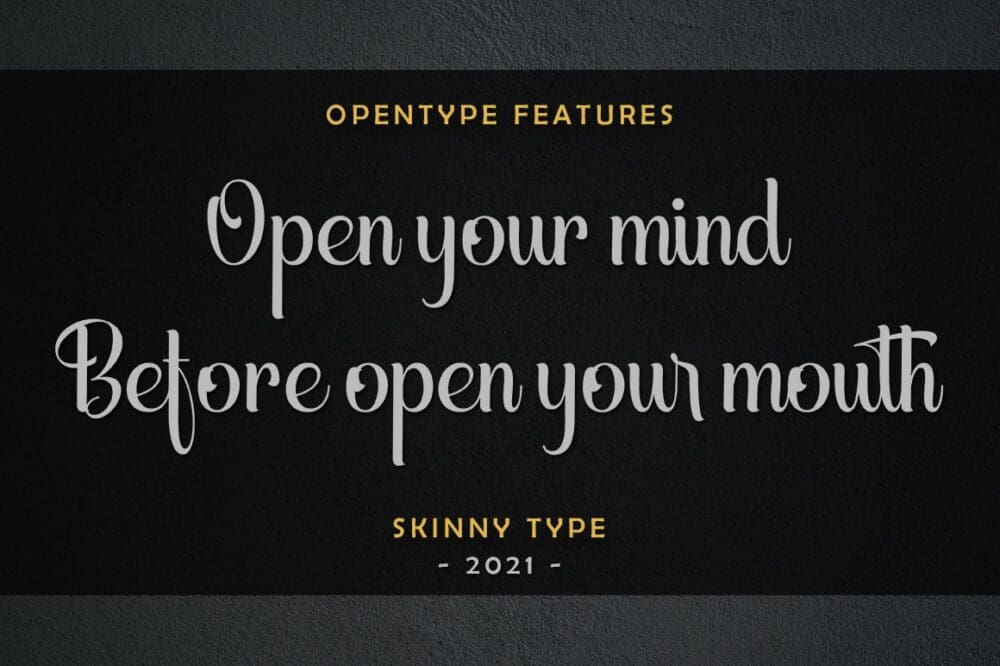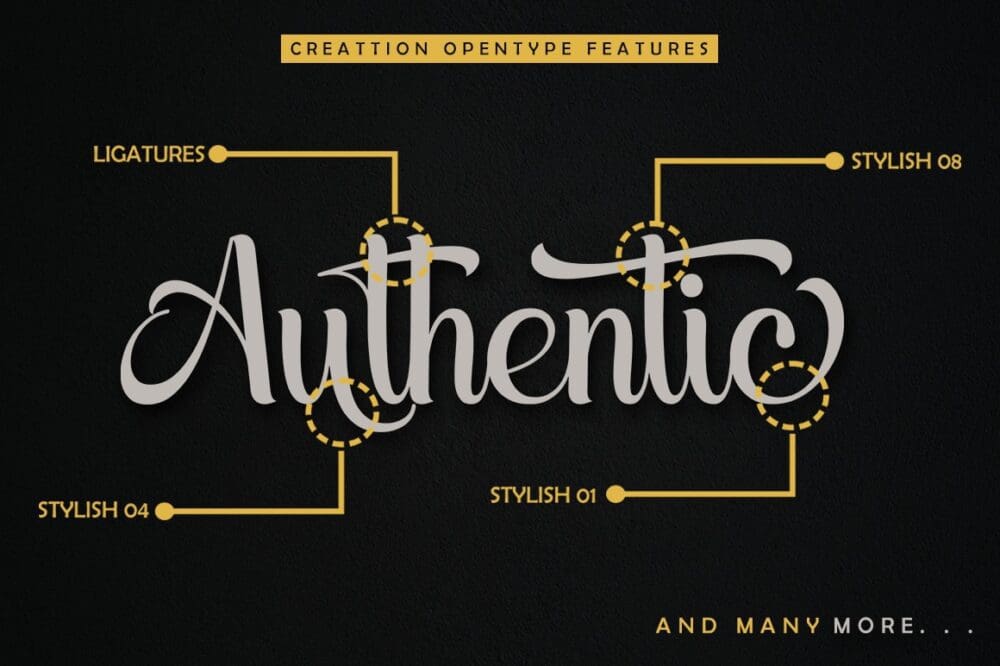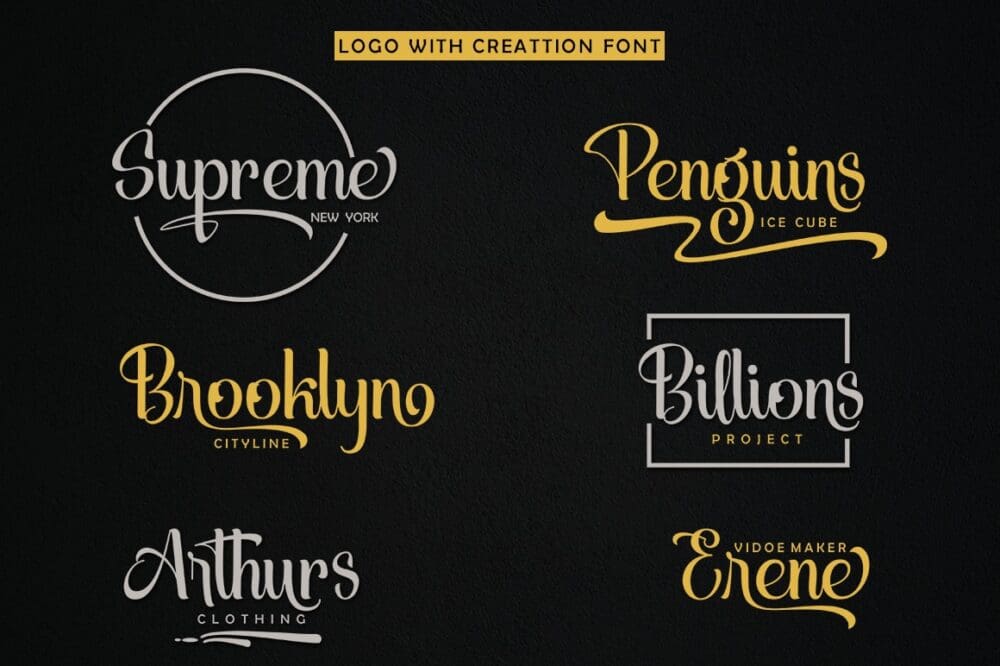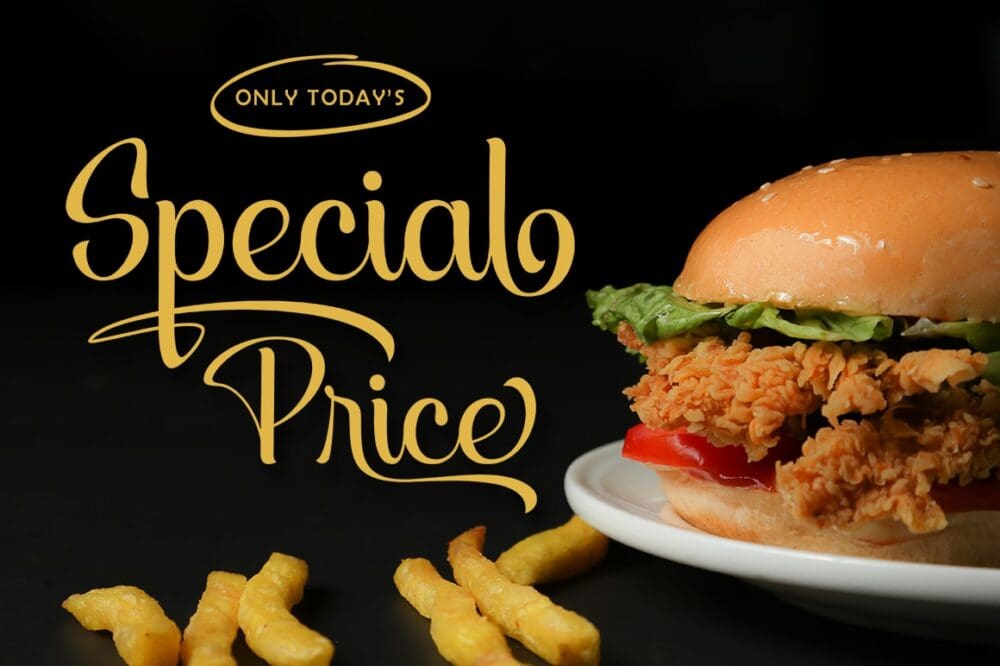
Creattion Script Font
Creattion Script Font. Creattion is a retro bold script font. It is PUA encoded which means you can access all of the glyphs and swashes with ease! It features a varying baseline, vintage and retro taste, gorgeous glyphs, and stunning alternates. Fall in love with its incredibly versatile style and use it to create spectacular designs!